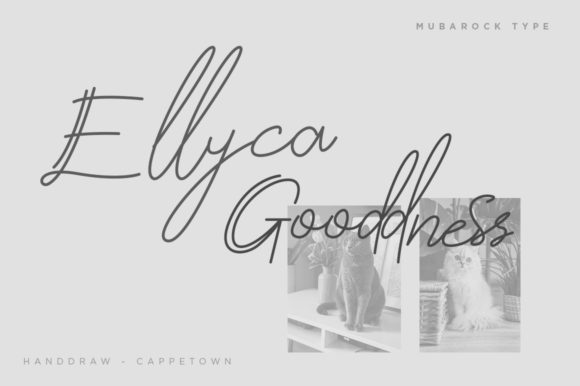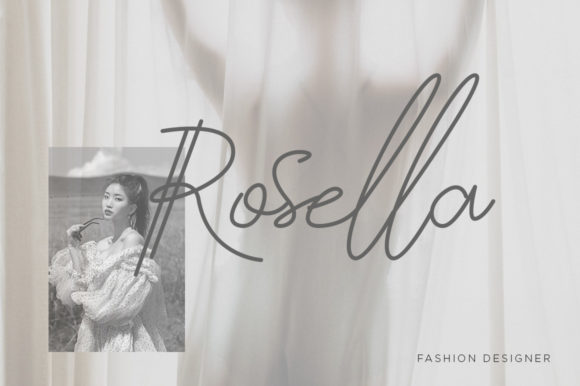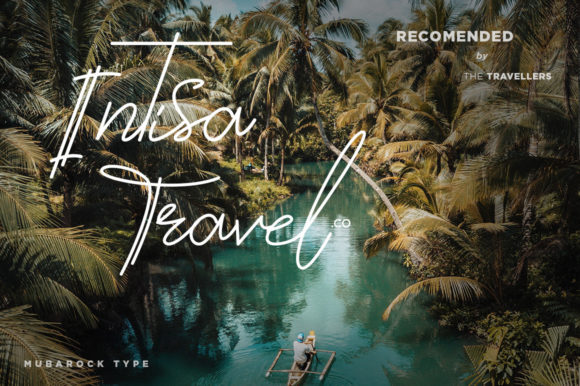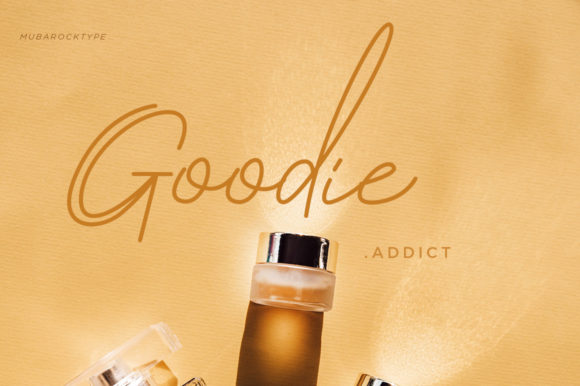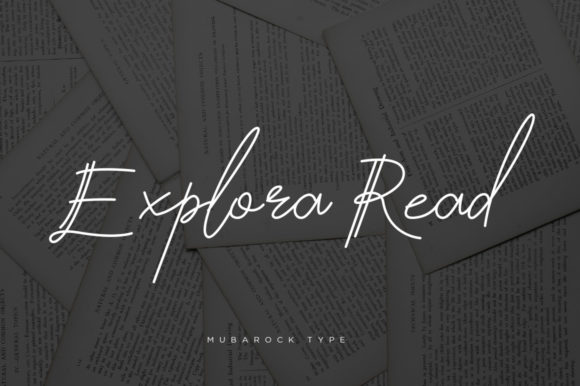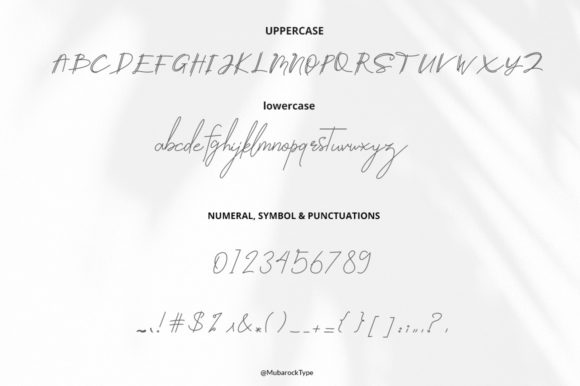
Introducing Capetown Font: Elevate Your Designs with Elegance and Class
Are you tired of using the same old fonts in your design projects? Look no further than Capetown Font, a sweet and subtle handwritten font that is crafted with great care for maximum results. With its elegant and classy vibe, Capetown Font is the perfect addition to any design project, from branding and advertising to packaging and digital media.
The Story Behind Capetown Font
Capetown Font is a carefully crafted handwritten font that is designed to add a touch of sophistication and refinement to your designs. Its subtle curves and gentle lines make it perfect for creating beautiful and eye-catching text that will capture the attention of your audience. Whether you’re a designer, crafty DIY enthusiast, or simply someone who appreciates beautiful typography, Capetown Font is sure to impress.
Key Features of Capetown Font
• Sweet and Subtle: Capetown Font features a sweet and subtle design that is perfect for creating elegant and refined text.
• Handwritten with Care: Each letter is carefully crafted by hand to ensure a personal and unique touch.
• Elegant and Classy: Capetown Font adds a touch of sophistication and refinement to any design project.
• Maximum Results: With its clear and legible design, Capetown Font is perfect for use in a variety of design applications.
Uses for Capetown Font
Capetown Font is a versatile font that can be used in a variety of design projects, including:
• Branding and Advertising: Use Capetown Font to create beautiful and eye-catching logos, ads, and marketing materials.
• Packaging Design: Add a touch of elegance and sophistication to your product packaging with Capetown Font.
• Digital Media: Use Capetown Font to create stunning digital media, including social media graphics, blog posts, and website headers.
• Crafting and DIY Projects: Add a personal touch to your crafty DIY projects, such as handmade cards, gift tags, and scrapbooking.
Why Choose Capetown Font?
With so many fonts to choose from, why choose Capetown Font? Here are just a few reasons:
• Unique and Personal: Capetown Font features a unique and personal design that will set your designs apart from the crowd.
• High-Quality: With its clear and legible design, Capetown Font is perfect for use in a variety of design applications.
In conclusion, Capetown Font is a beautiful and elegant handwritten font that is perfect for adding a touch of sophistication and refinement to your design projects. With its sweet and subtle design, clear and legible lines, and versatile uses, Capetown Font is a must-have for designers and crafters alike. So why wait? Download Capetown Font today and start elevating your designs with elegance and class!